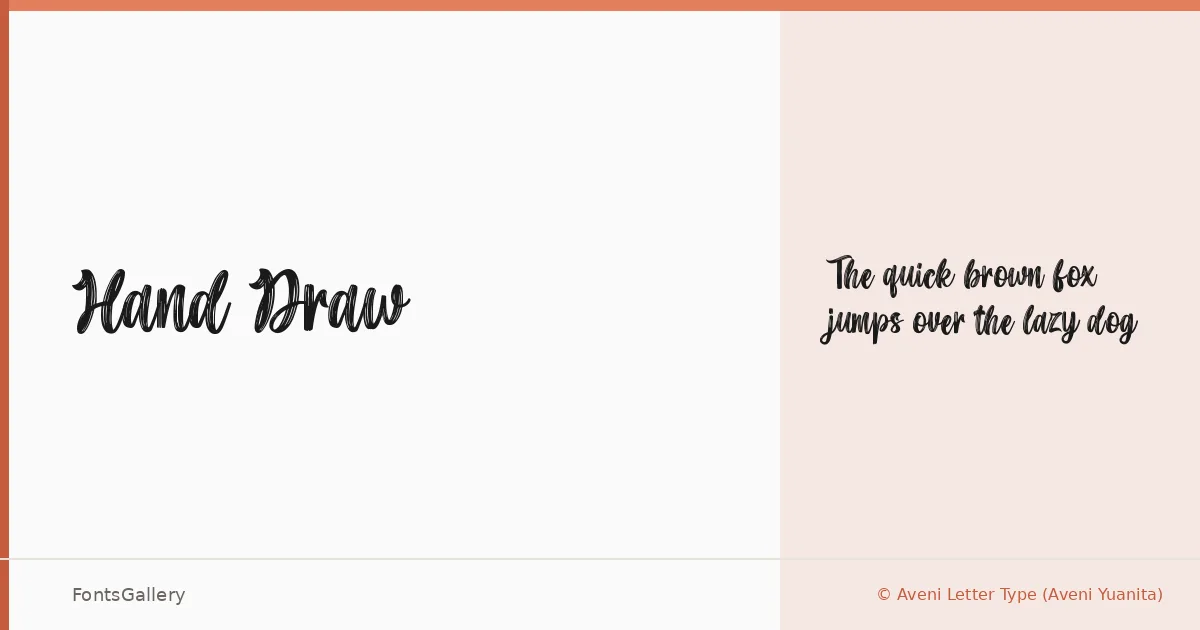
About Hand Draw Font
There is an immediacy to this script — the kind of line that looks like someone picked up a pen and simply wrote, without second-guessing the stroke. Aveni Yuanita of Aveni Letter Type drew it with that casual, human quality intact, and the result carries the warmth of something genuinely handmade rather than mechanically constructed. It is available in a single Regular cut, offered in both TTF and OTF formats.
The handwritten character sits comfortably in a space that is at once playful and romantic, with enough rustic texture to keep it from feeling precious. Because there is only one style in the family, the weight and personality are fixed — so the letterforms do their work through their natural variation in stroke rather than through a range of cuts. Latin script coverage keeps it focused and clean in use.
It reads well wherever a personal, crafted touch is the point: invitation cards, greeting cards, social media graphics, and branding or logo work where you want the handmade quality front and center. For contrast and balance, it has been paired alongside Canela, Helvetica, ABC Arizona, Asap, and Adobe Caslon Pro — any of which can anchor body copy or secondary text while this face carries the expressive headline.